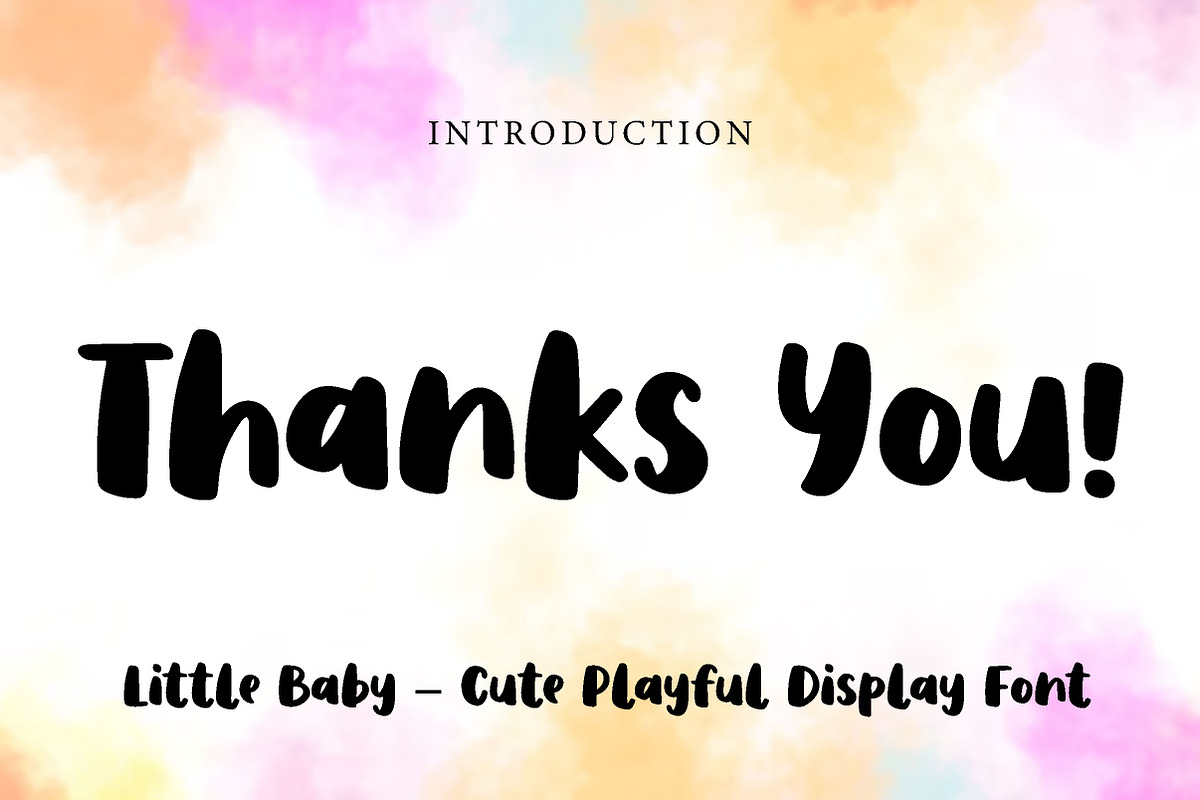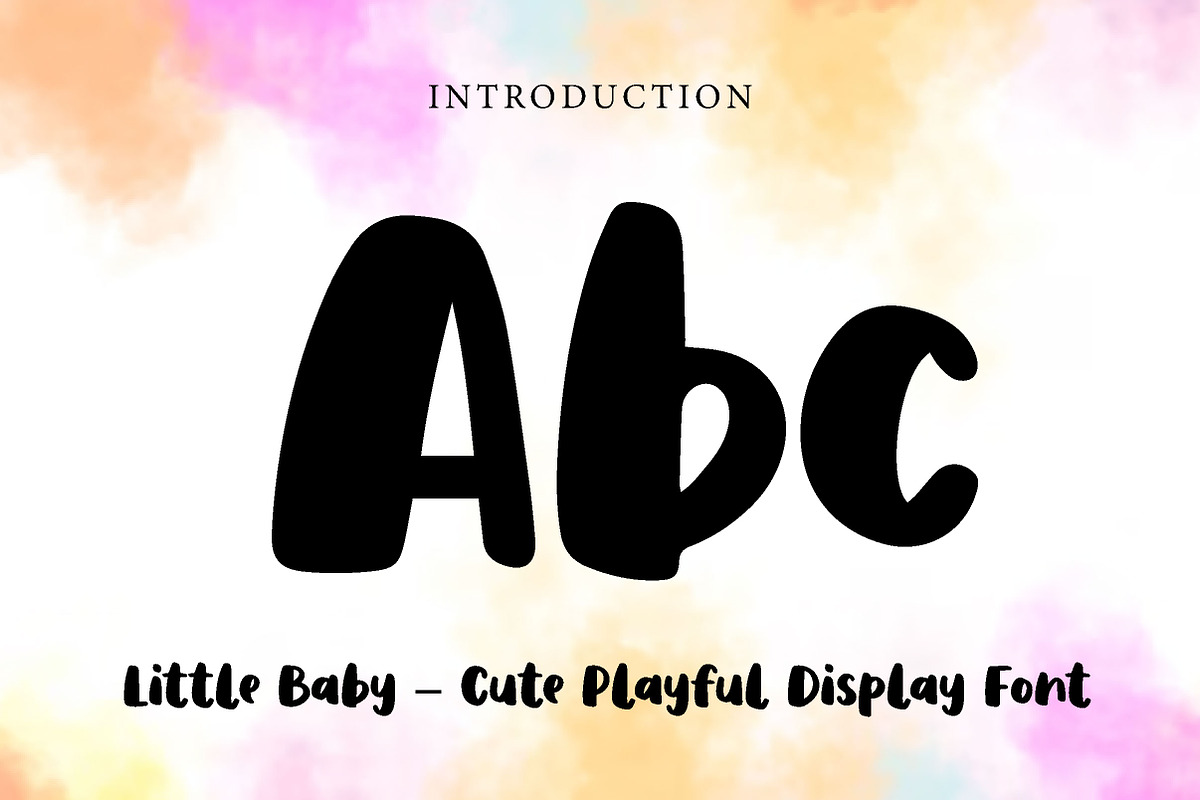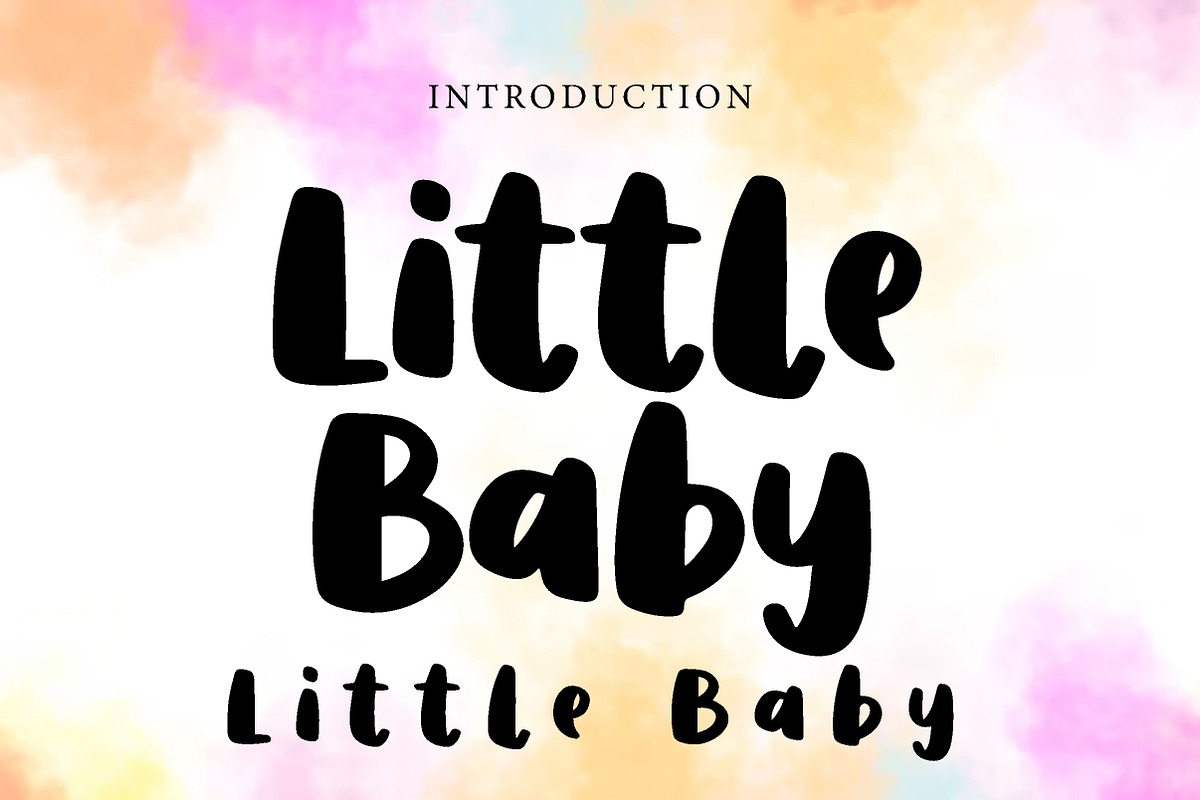
Little Baby
Little Baby – Cute Playful Display Font
Short Description
Little Baby is a cute, soft, and playful display font, perfect for baby-themed designs, nursery projects, branding, packaging, invitations, and cheerful creative work.
Full Description
Little Baby is a sweet and charming display font designed to bring warmth, joy, and softness into your designs. With its rounded shapes, bold strokes, and playful letterforms, this font creates a friendly and lovable look that feels perfect for baby and kids-related themes.
Its soft and cheerful character makes Little Baby ideal for projects that need a cute and heartwarming touch. Whether you are designing baby shower invitations, nursery decor, kids branding, product packaging, social media graphics, posters, stickers, or playful logo concepts, this font helps your typography stand out in a warm and memorable way.
The chunky rounded structure keeps your text easy to read while adding a handcrafted and joyful personality. Suitable for both print and digital use, Little Baby is a wonderful choice for designers who want a font that feels sweet, playful, and full of charm.